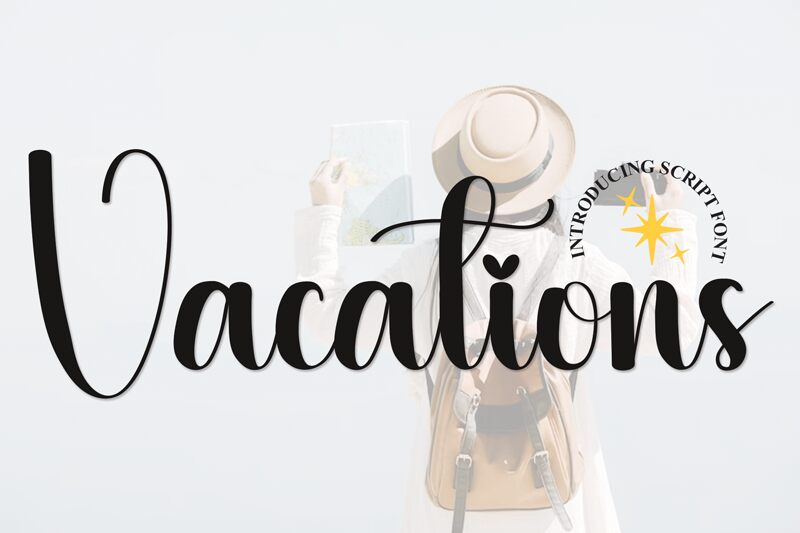
Vacations
Vacations font, designed by Scratchones, elegantly captures the essence of relaxation and leisure through its flowing calligraphy. This font exudes a charming spontaneity, with its playful curves and whimsical swirls inviting a sense of carefree joy. The light strokes create an airy feel, while the bolder elements provide a striking contrast that draws the eye.
The aesthetic appeal lies in its ability to evoke emotions associated with travel, summer days, and joyful gatherings. Its expressive nature makes it an ideal choice for branding vacation-related enterprises, crafting event invitations, or designing promotional materials that celebrate life's special moments. Whether used for posters or social media graphics, Vacations font effortlessly enhances any design with a touch of warmth and creativity.